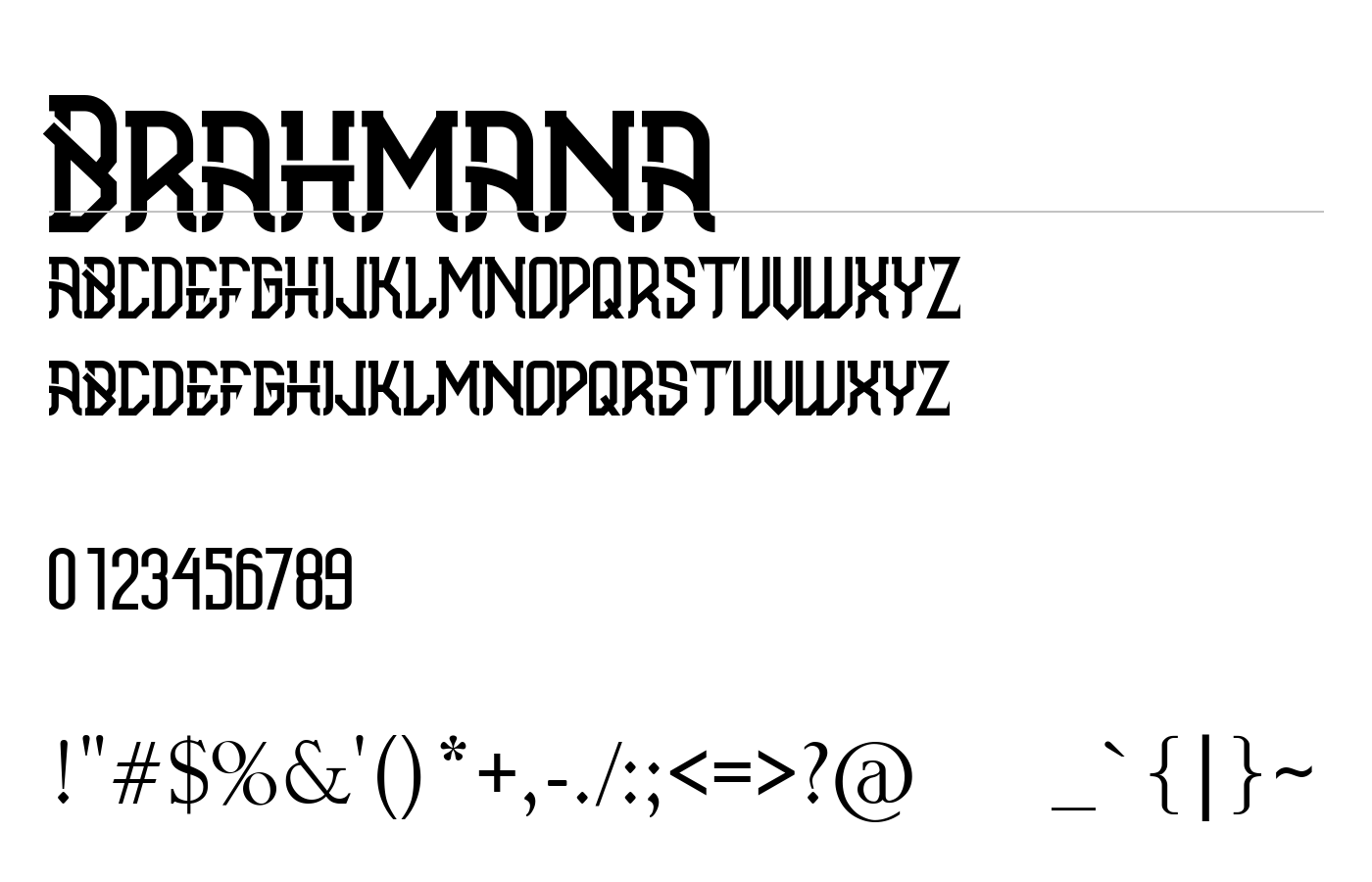
Brahmana is a distinctive condensed sans serif font with a strong geometric structure and sharp, angular strokes that convey a bold, modern vibe. Its high contrast and unique, slightly ornamental letterforms give it a futuristic and artistic personality, making it ideal for striking headlines, branding, and designs that seek a blend of modernity and sophistication. This font works particularly well in creative projects, packaging, and editorial use where a standout, stylish impression is desired.
Brahmana Font
About Brahmana Font